Best Fonts for Party Decor: Unlock Joyful Celebrations with Festive Typography
Finding the best fonts for party decor means choosing typefaces that spark joy and radiate celebration. Party invitations, banners, signage, and dessert labels all contribute to the festive atmosphere and a vibrant font can make them pop. Whether it’s a kid’s birthday, a seasonal gathering, or a themed festival, the right font injects excitement and whimsy into every element of the event. This article explores ten standout fonts designed to delight and delightfully decorate any celebration.
Style and Personality: Joyful Fonts That Set the Tone
A font’s character matters. For a cheerful New Year or any celebratory event, Happy New Year Party Font brings bold, festive strokes and a confetti-inspired design. It’s perfect for party headers and photo wall text but can feel overwhelming if used for longer text.
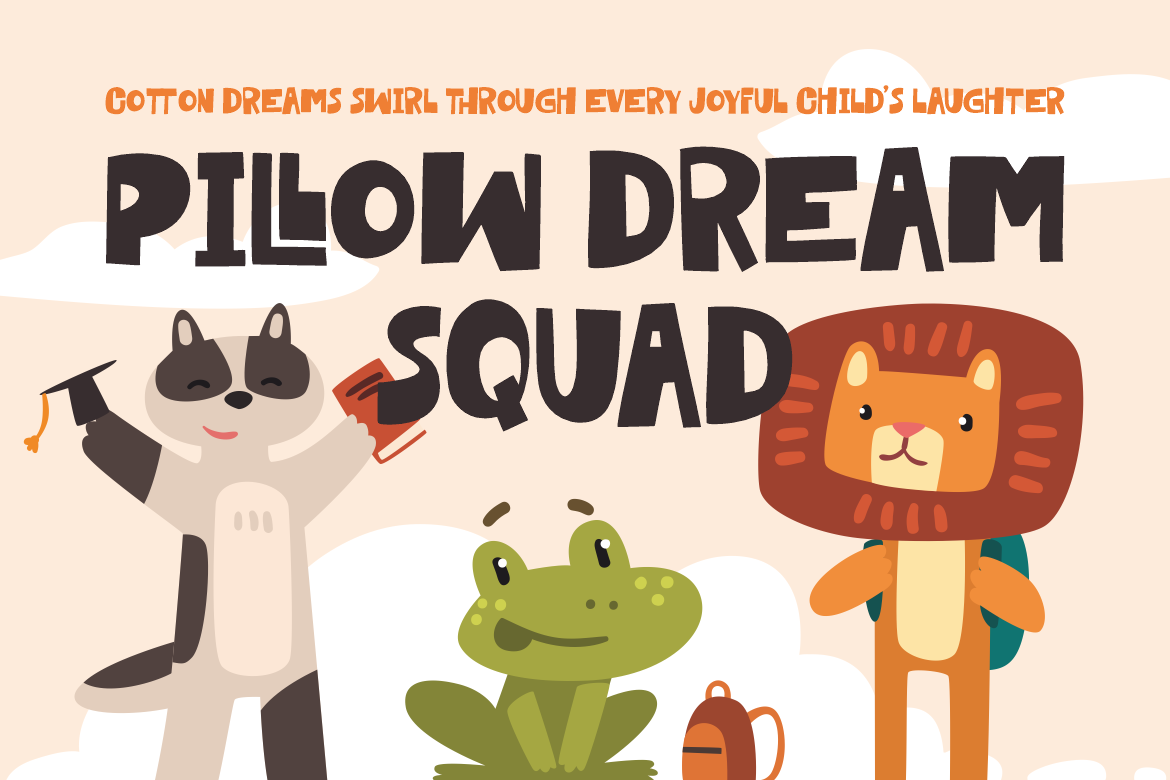
Cotton Sproot Cheerful Fancy Font adds warmth with its rounded letters and playful curves. Ideal for dessert tags and invitation titles, it evokes lighthearted fun, though it may lack impact on large banners where sharper shapes perform better.
For a quirky vibe, Typo Tingle Quirky Fun Font is excellent. The bounce in each letter conveys movement—great for kid’s party themes or playful festival invites. However, its irregular baseline may hinder readability when used in bulk text.
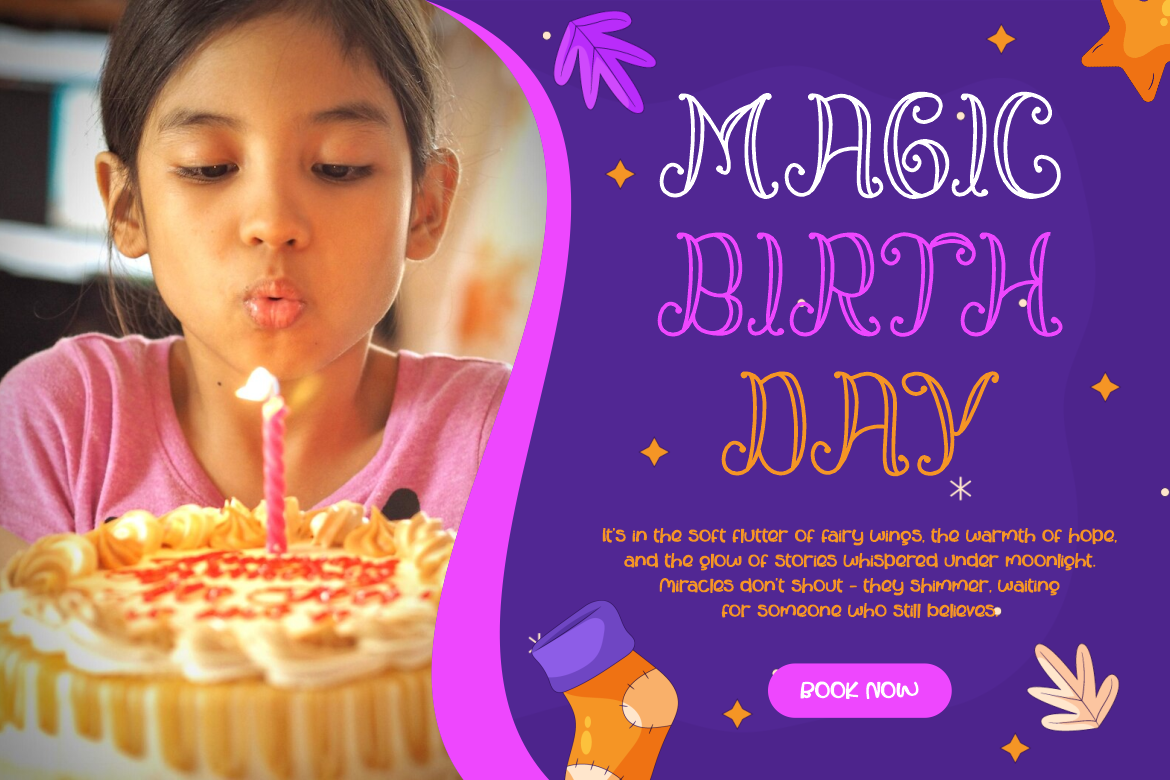
Fantasy-themed celebrations come alive with Lumoria Tales Magical Fantasy Font. Elegant swashes and enchanted curves make it delightful for fairytale-style banners or menu cards, though it may be too whimsical for modern minimalist themes.
Bold Expressions: Standout Choices for Dynamic Designs
Need something vibrant and in-your-face? Mega Boldy Playful Bold Font delivers. With thick strokes and rounded edges, it’s great for outdoor signage or loud graphics. Its only drawback is space—it takes up a lot of room, so layout planning is essential.
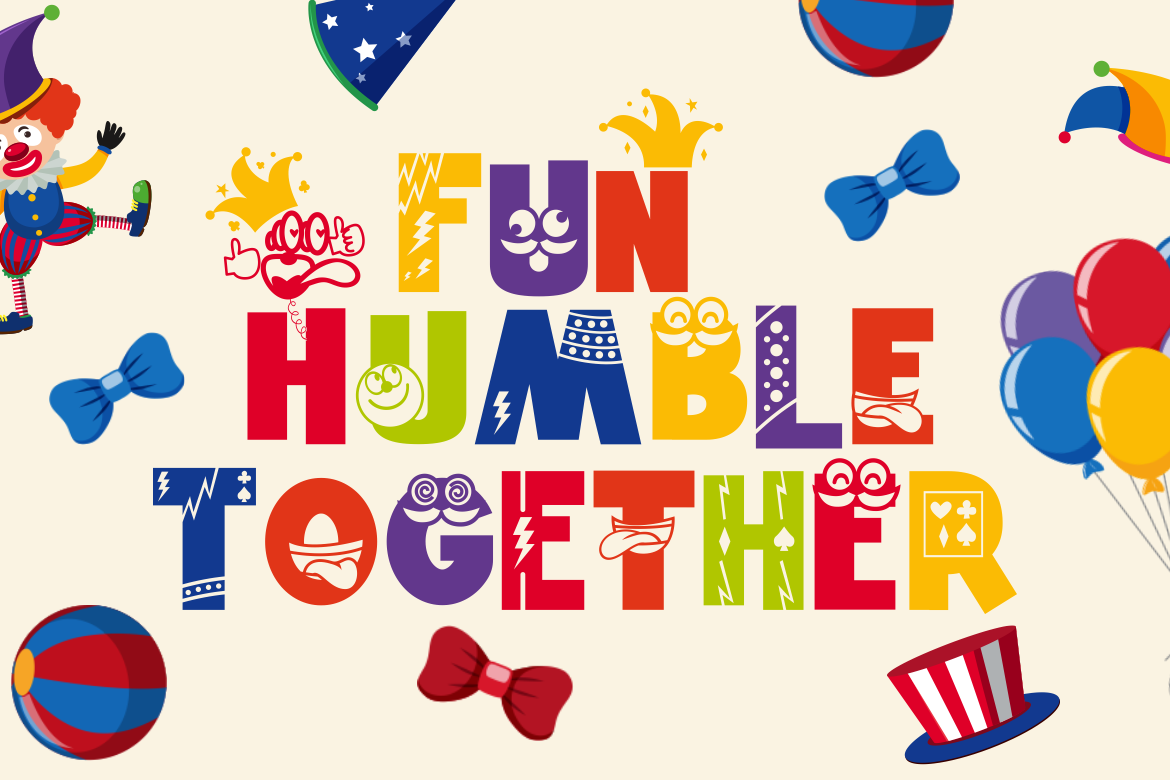
Jester Jumble Fun Clown Font offers comedic flair with pointed accents and lively shapes. It instantly conjures up carnival energy. Yet, for more refined gatherings, its exaggerated style might feel too cartoonish.
Seasonal and Themed Festivity Fonts
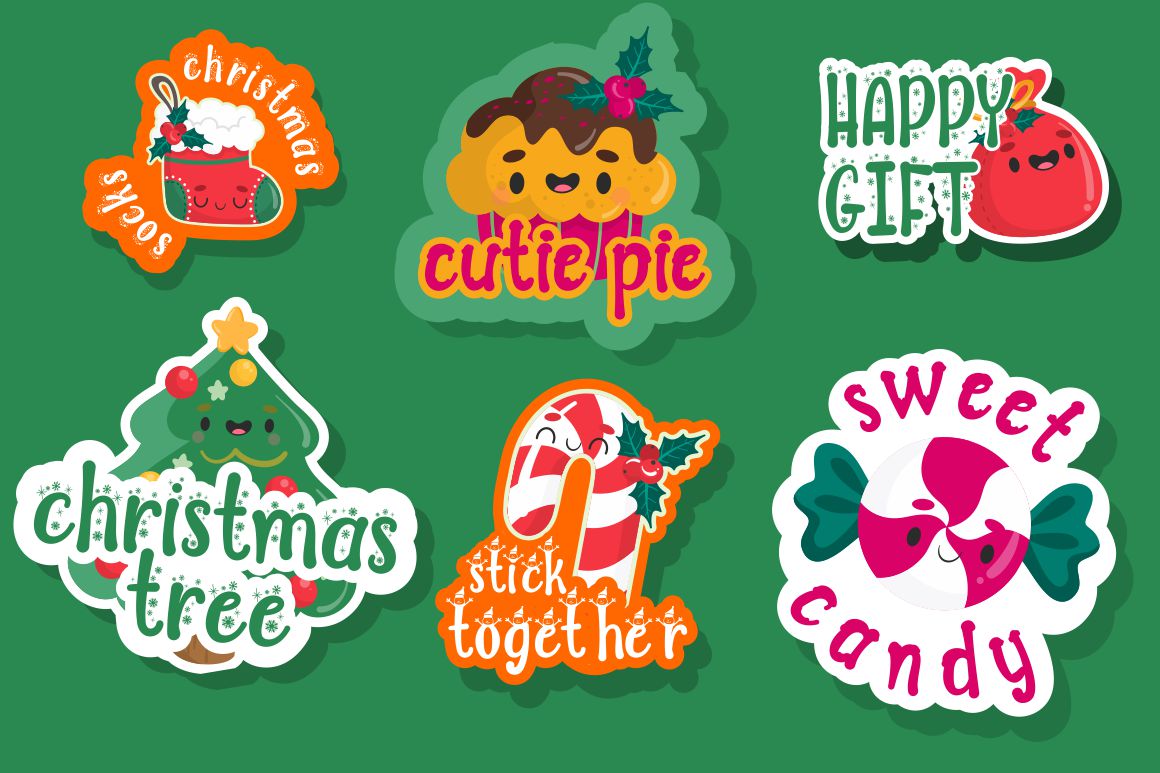
To evoke wintry or snowy celebrations, choose Cute Snow Font. Letters look dusted with snowflakes, perfect for holiday parties or winter birthdays. It’s charming on posters but might lose detail at small print sizes.
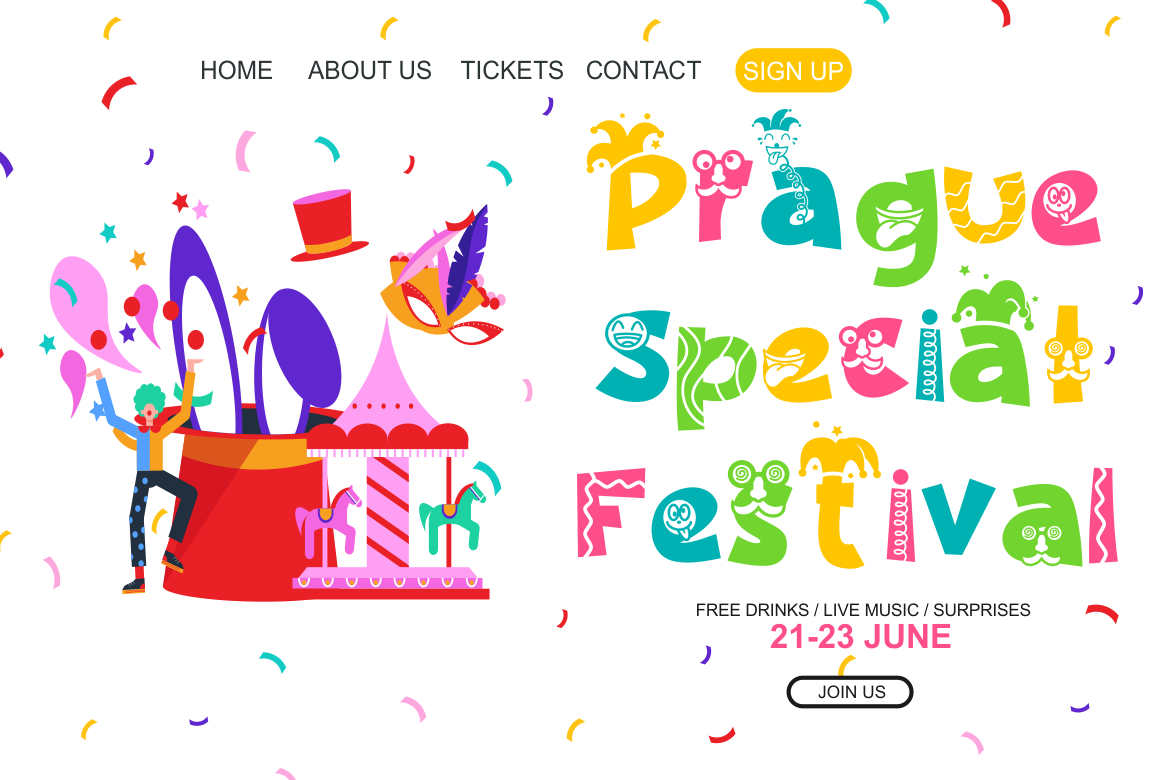
Another festive option, Night Clown Quirky Clown Font, uses tall, slim lettering paired with dramatic dots and flicks. Ideal for evening events like Halloween or circus-themed parties. It looks fun on dark backgrounds but can appear spindly in brighter settings.
Hand-Drawn Charm: Fun and Friendly Fonts
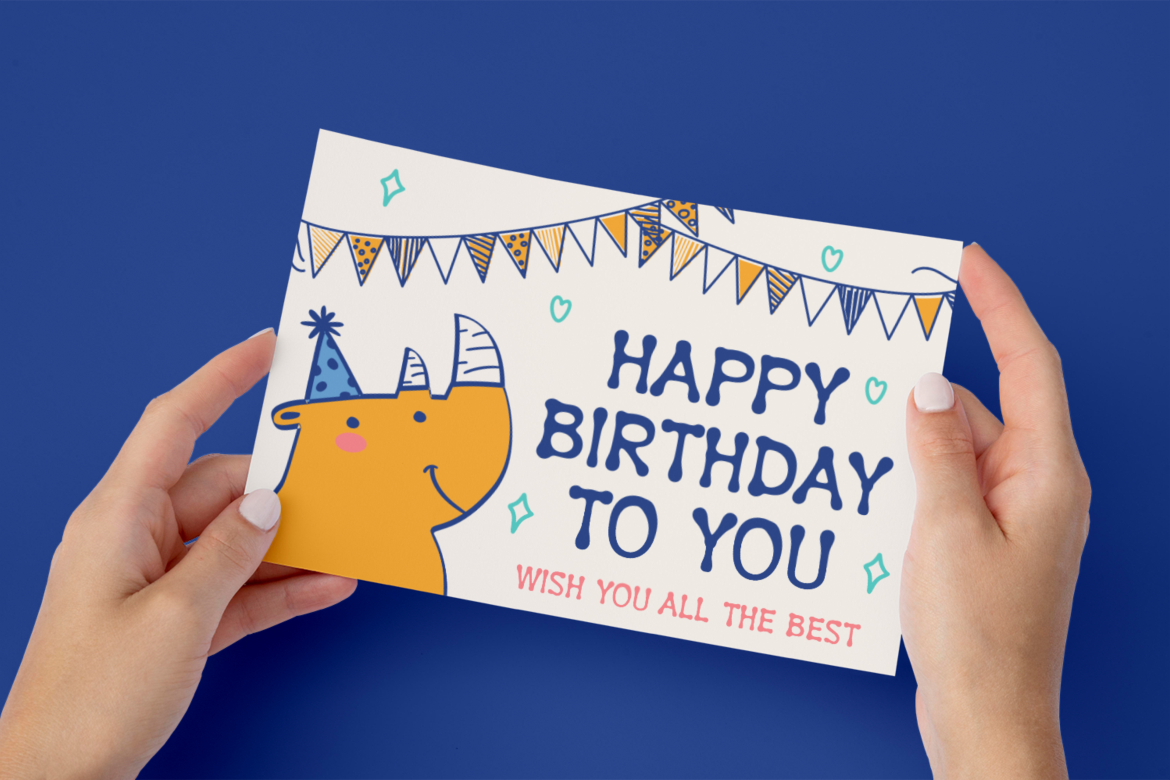
Doodle Giggle Playful Doodle Font stays casual with scribbled lines and irregular spacing. It suits children’s party crafts and DIY decor materials. Still, doodle fonts may seem too informal for milestone events or adult celebrations.
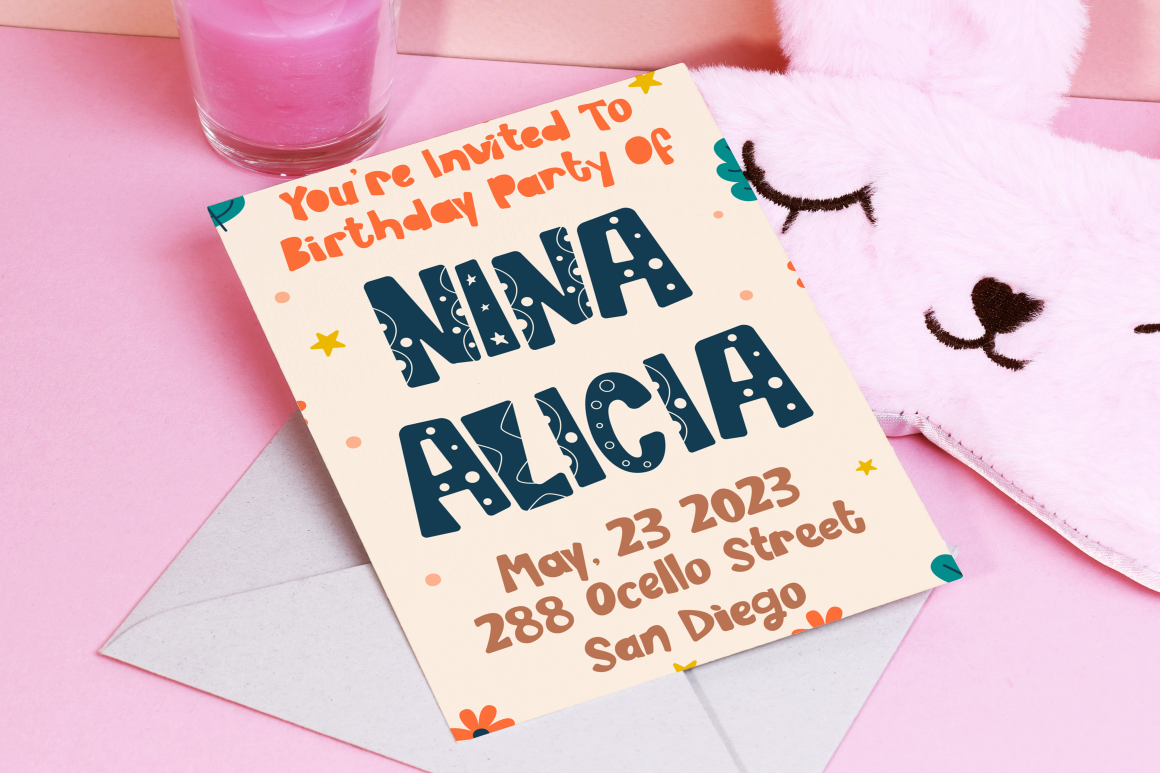
For quirky outdoor or boho-themed parties, 3 Style Quirky Playful Font combines playful letters with uneven baselines. It works well on stuffed party favors and tee signage but may require additional pairing with cleaner fonts for body text.
Creating Cohesion with the Right Typeface
Choosing the best fonts for party decor does more than enhance design it ties every visual element together, providing coherence from invitation to thank-you note. For instance, pairing Typo Tingle on banners with Cotton Sproot on cupcake labels builds playfulness without visual chaos. Or, using Lumoria Tales for main headers and Mega Boldy for accent text merges fantasy with bold readability.
It’s important to use fonts strategically: decorative faces are eye-catchers but should be balanced with simpler fonts for body text. Overloading a design with bold display fonts can tire the eye and crowd the layout. Also consider licensing ensure your fonts come with clear commercial rights if you’re producing printed decor or digital assets for resale.
Practical Tips for Best Font Use
- Test readability in different lighting and viewing distances to ensure your font stays legible at the party.
- Mix and match fonts: decorative typefaces gain drama when coupled with minimalist sans-serifs for readability and contrast.
- Scale appropriately big and bold for headers, smaller and subtler for captions and tags.
- Coordinate with color palette bright tones enhance playful fonts while muted shades suit elegant gatherings.
- Plan for printing keep in mind how decorative fonts reproduce on cardstock versus backdrops or digital screens.
Why Font Choice Elevates Party Decor
Selecting the best fonts for party decor is about more than fonts it’s about emotion. A whimsical script or chunky display font can instantly shift the atmosphere of a room. Fonts prime the audience for celebration even before the first balloon is blown up. They become part of the storytelling, tying invitations, signage, photo booths, and thank-you cards into a single visual narrative. In essence, the right font helps make a party unforgettable.